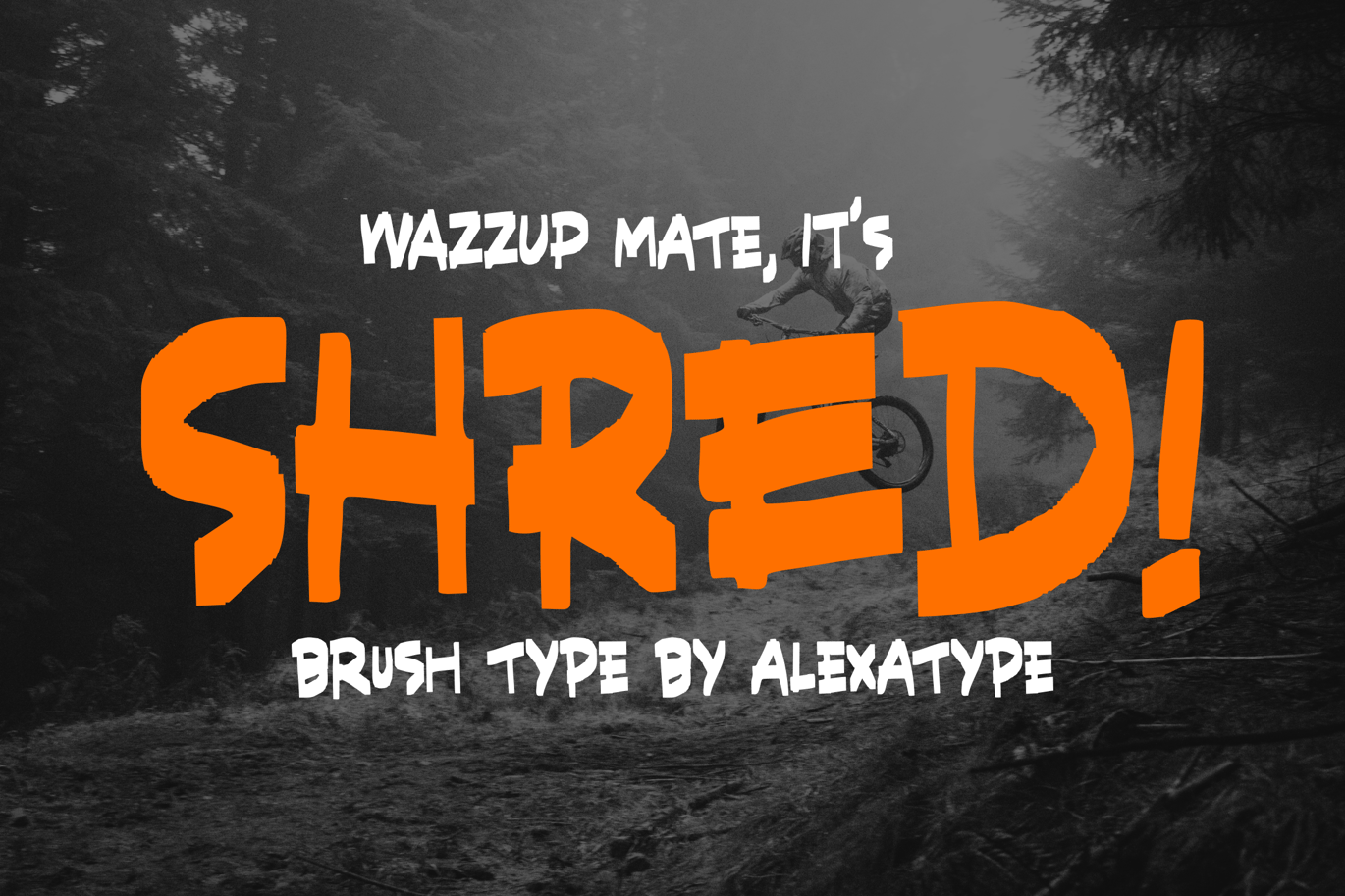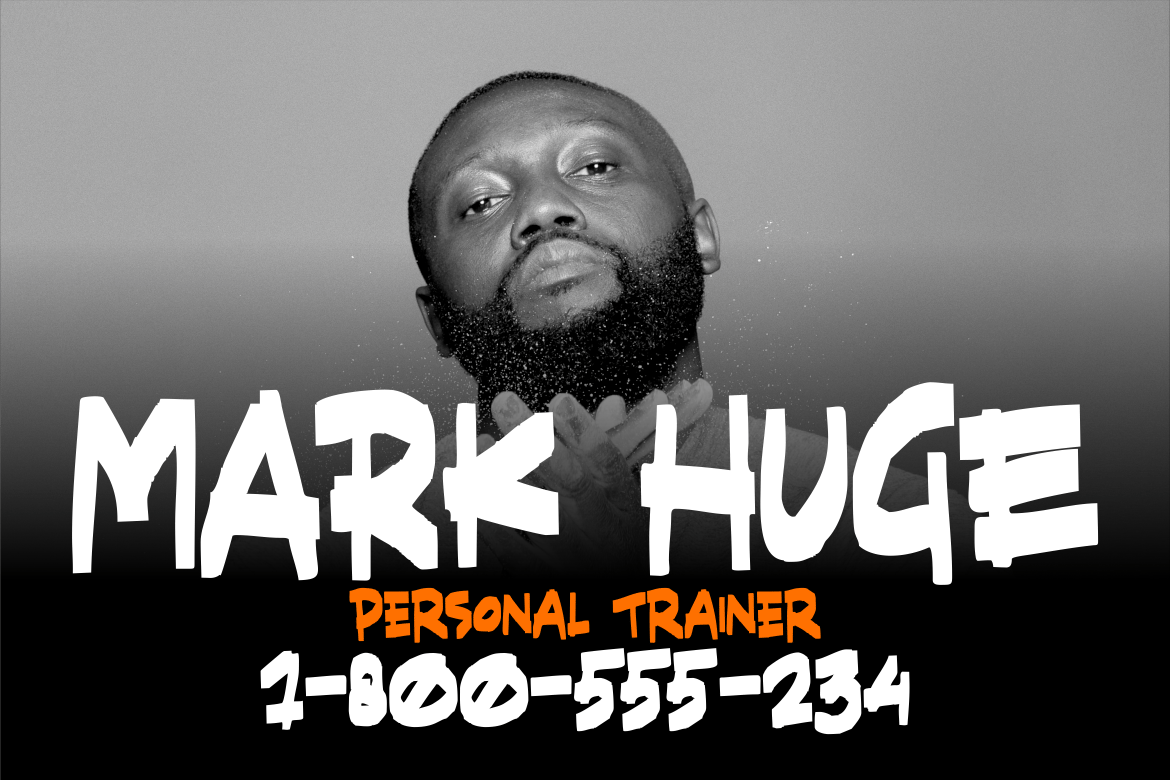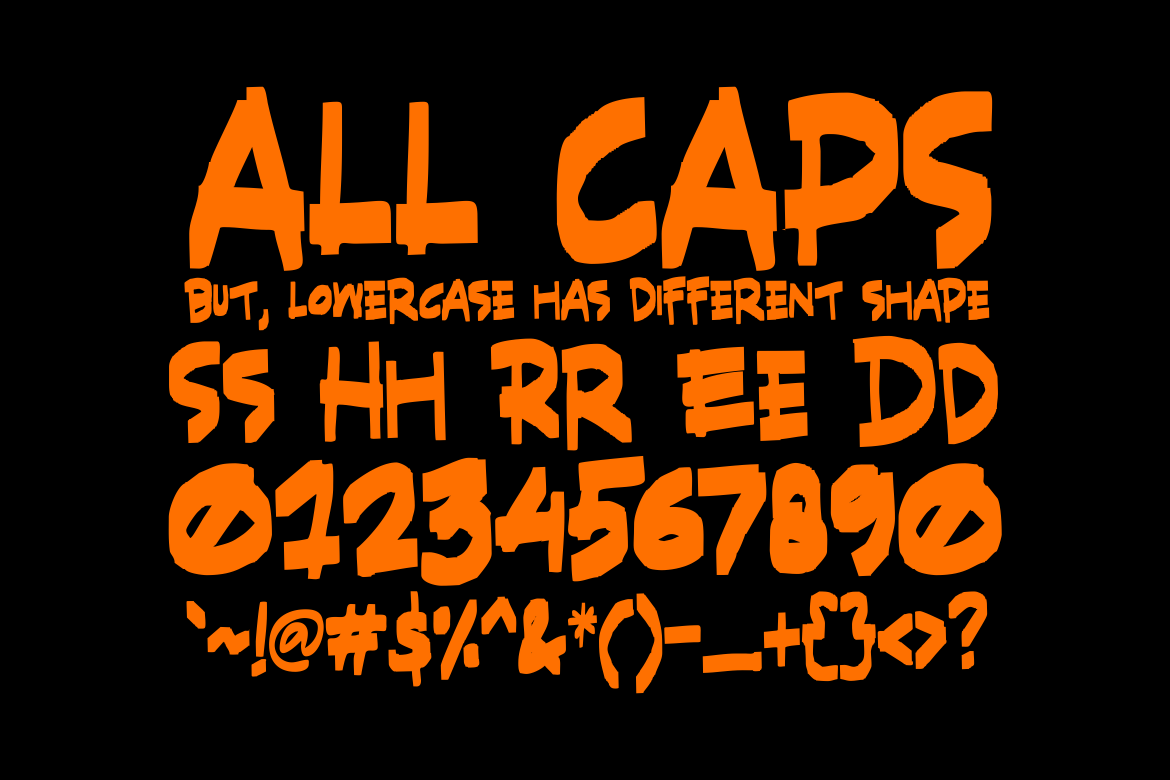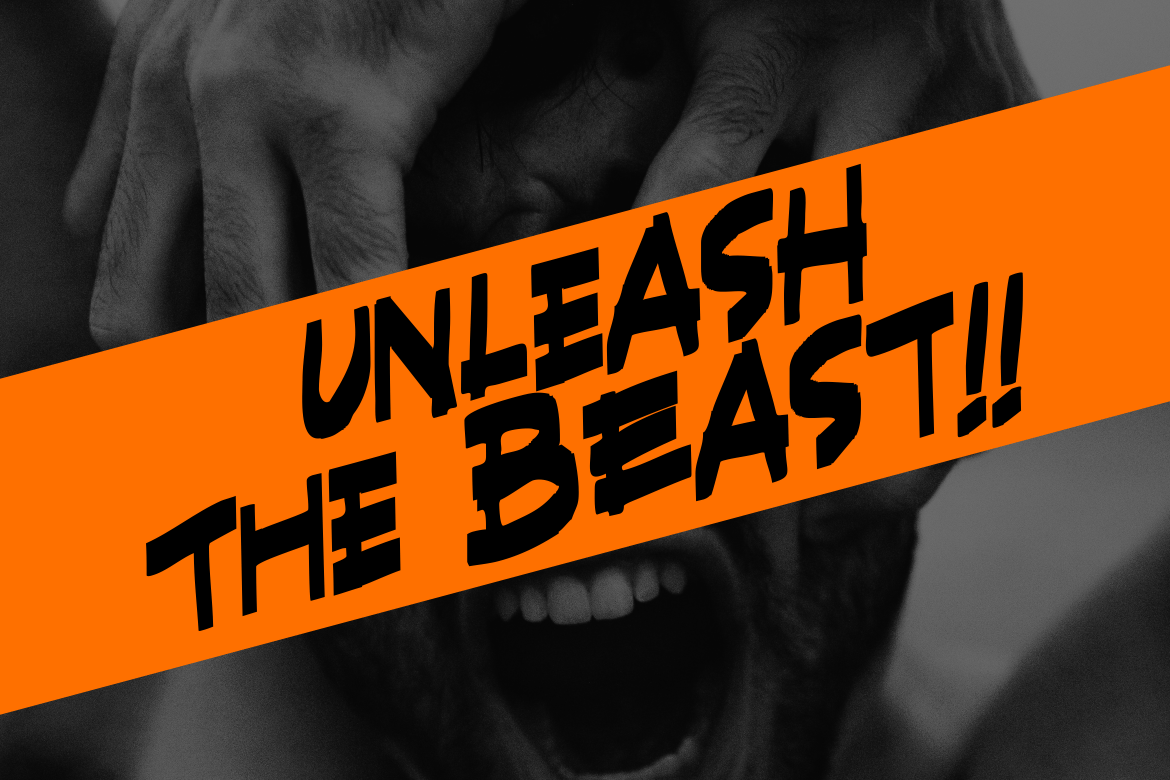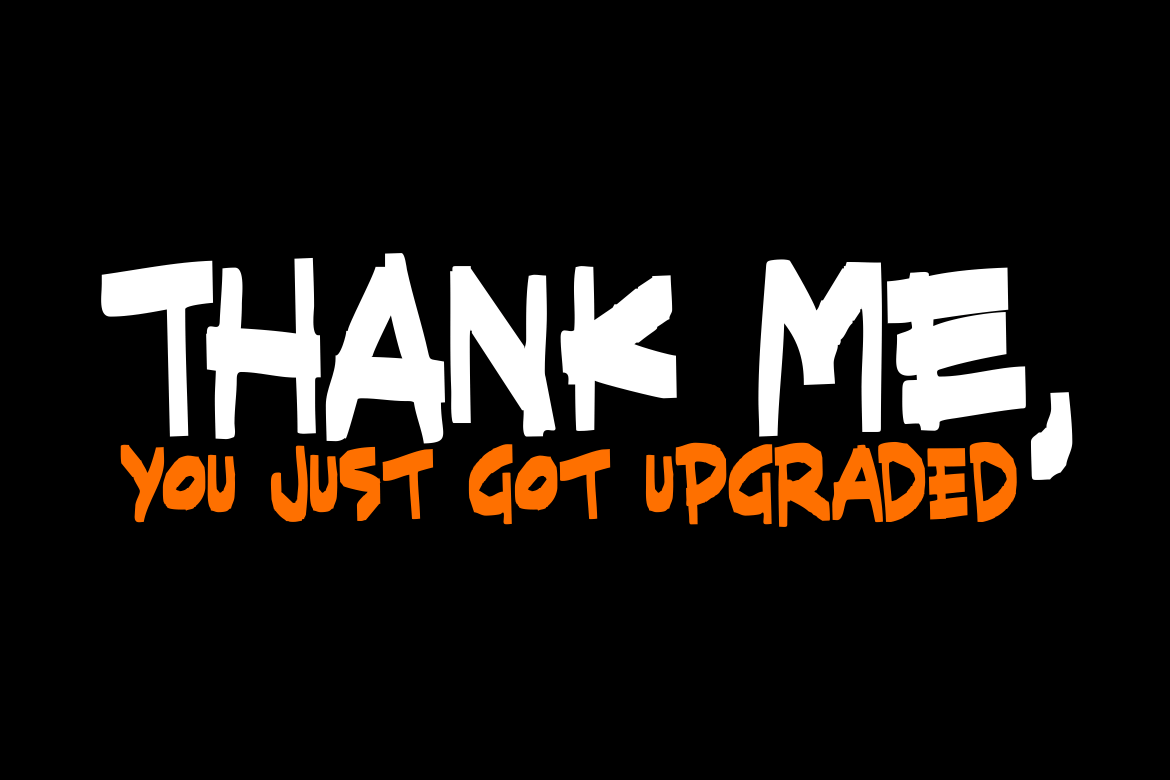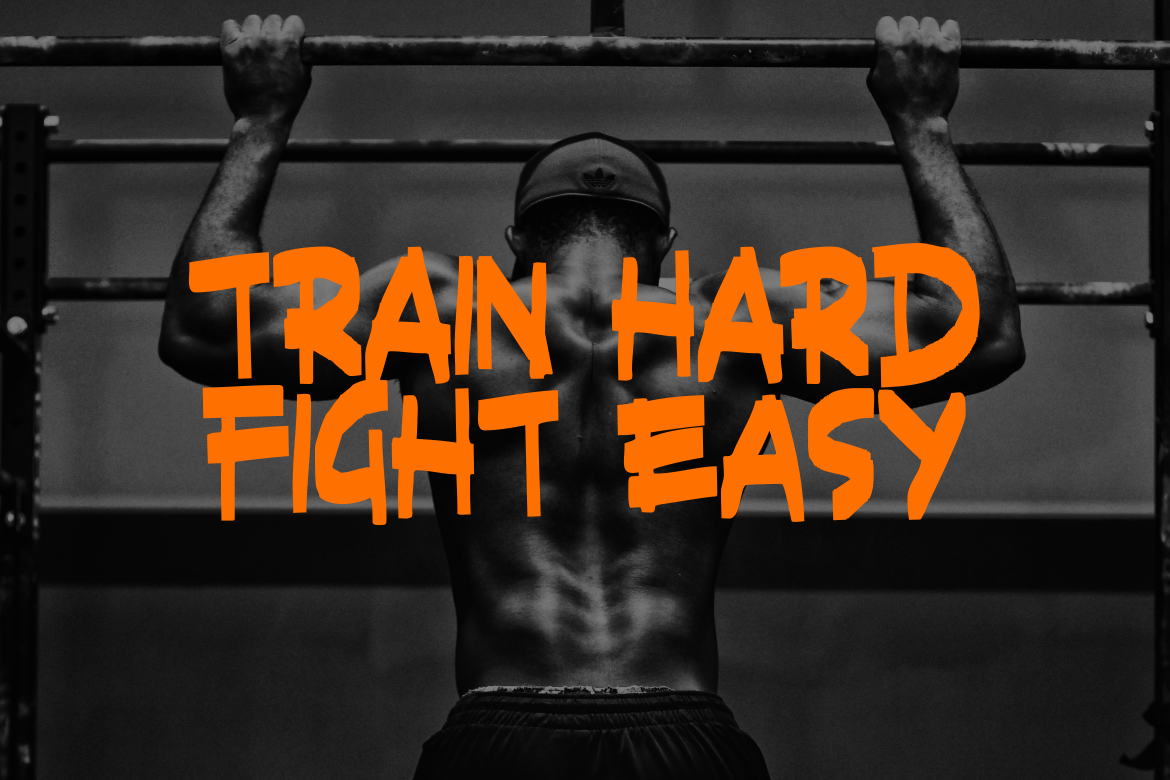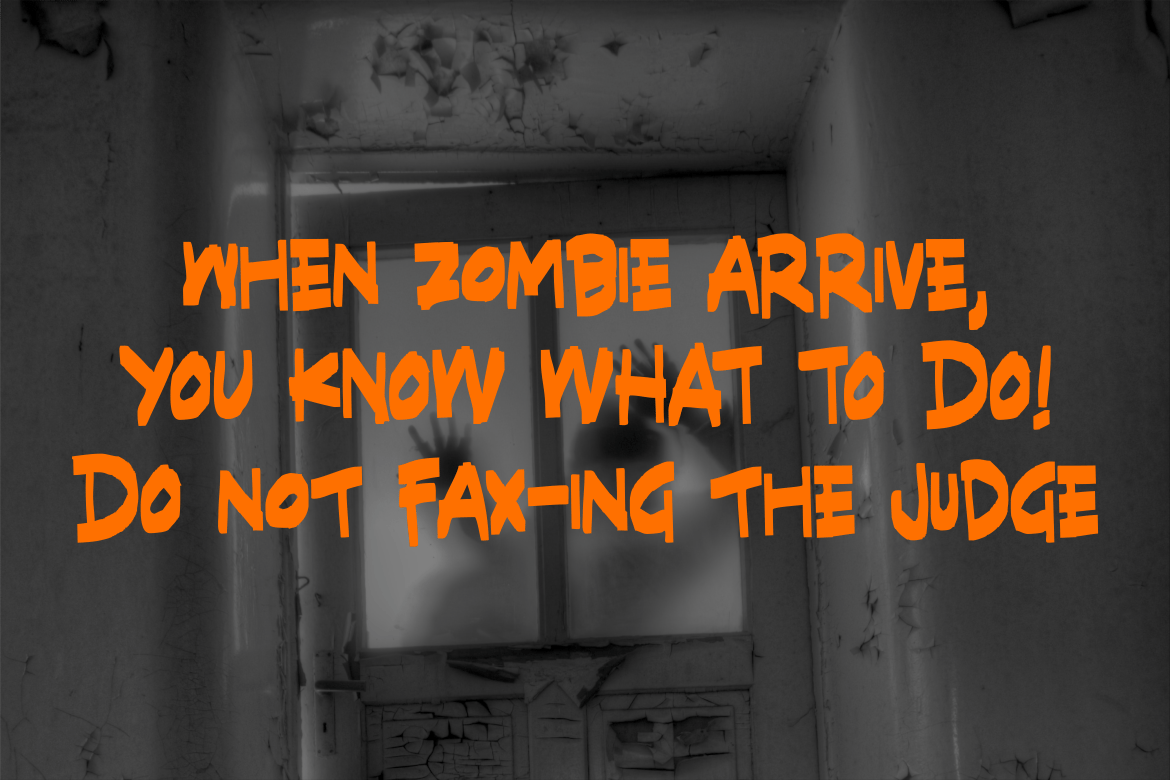
SHRED! – Aggressive Brush Font
SHRED!
an aggressive brush font that perfect for quote, t-shirt design, motivational poster, an any design that need a boost of energy. It’s all in caps, but lowercase has different shape from the uppercase. Use them to get more natural handwriting feeling. SHRED! available in TTF, OTF, and WOFF.